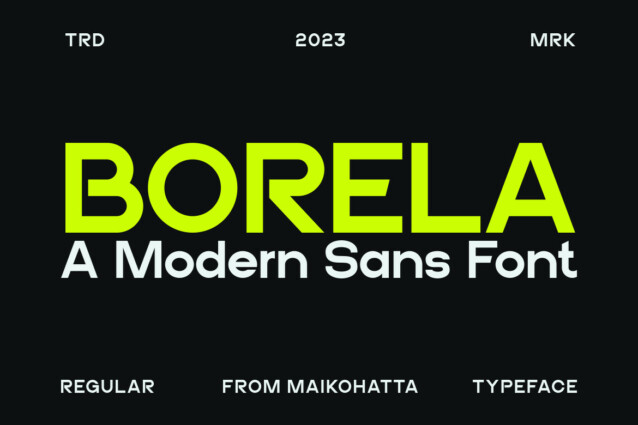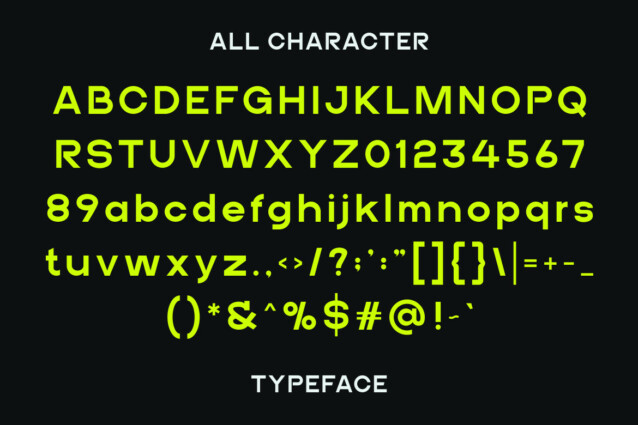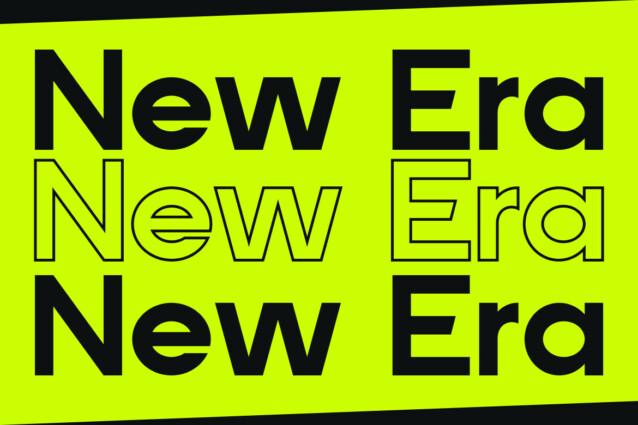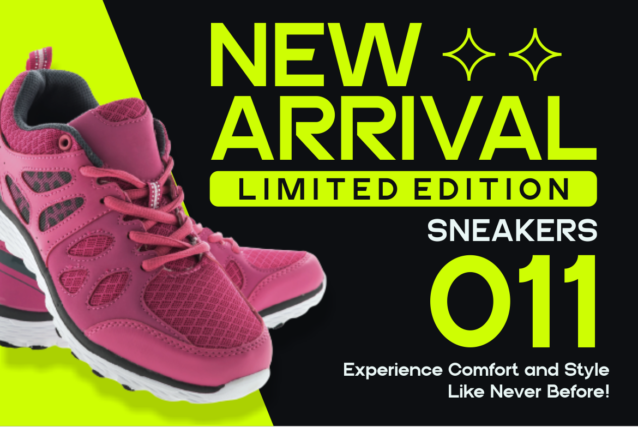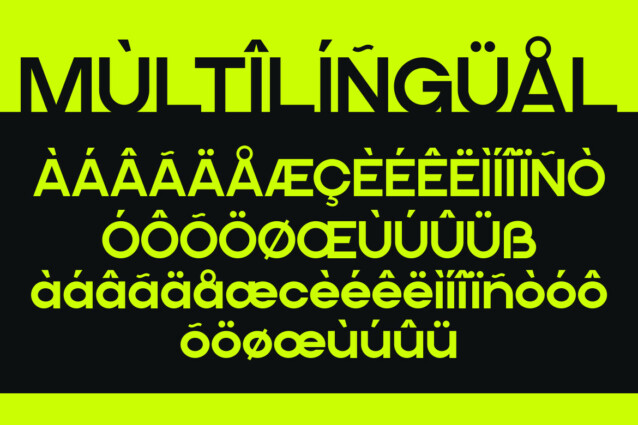
Borela Font
Borela Font is a very flexible choice and can be used in a variety of design contexts. Its ability to provide a clean, professional, contemporary look and its simplicity and visual appeal make this font good for use in the world of graphic design and modern typography.
* Uppercase
* Lowercase
* Multilingual